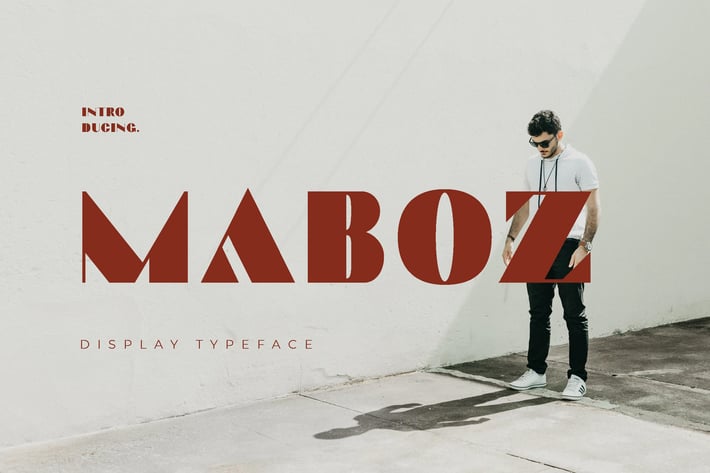
MABOZ Classy Advertisement Font
Maboz font is elegant modern sans serif font family. It can easily be matched to an incredibly large set of projects for your company/ corporate, so add it to your creative ideas and notice how it makes them stand out!